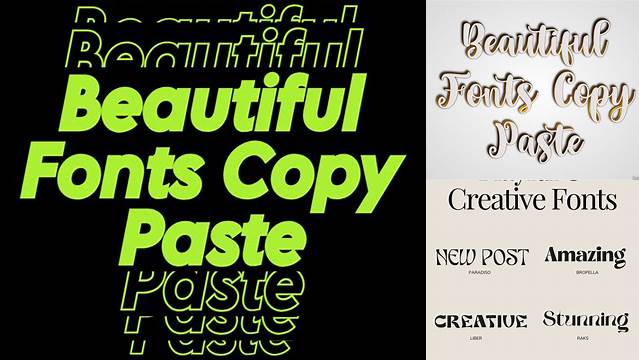
Most Beautiful Fonts: Copy and Paste Your Way to Stunning Typography
Hey guys! Ever wished you could sprinkle a little extra pizzazz on your social media posts, documents, or even just your everyday notes? Well, you're in luck! Today, we're diving headfirst into the wonderful world of most beautiful fonts copy paste. Forget those boring, standard fonts – we're talking about the cool, unique, and eye-catching ones that'll make your text pop! This guide is your one-stop shop for discovering, using, and mastering the art of font copy and paste. So, buckle up, because we're about to transform your text game!
1. Unveiling the Charm: Understanding Copy and Paste Fonts
So, what exactly are we talking about when we say most beautiful fonts copy paste? It's all about using special characters and Unicode symbols to create text that looks like a fancy font but is actually...well, a clever illusion! These aren't your typical fonts you select from a dropdown menu. Instead, they're crafted using a combination of characters that, when put together, mimic the appearance of various font styles. This allows you to use these eye-catching styles in places where you can't normally change the font, like social media bios, instant messages, or even certain websites. The beauty of this technique lies in its simplicity. You find a font style you like, copy the text, and paste it wherever you want. Boom! Instant typography upgrade. These fonts are built using Unicode characters, which are standard across most devices and platforms. This means that, unlike regular font installations, these special character fonts will generally display correctly regardless of the device or operating system your reader is using. Pretty neat, right?
Now, you might be wondering, "Is this even allowed?" and the answer is generally yes! Because you're not actually installing any fonts, you're simply using characters that are universally supported. There are no copyright issues or technical hurdles to worry about. However, keep in mind that the way these fonts appear can sometimes vary slightly depending on the device or platform. But don't worry, the core visual effect will remain. The whole goal of utilizing these types of fonts is to stand out. Think of it as a way to personalize your online presence and make your text visually appealing. So, whether you're a social media guru, a content creator, or just someone who likes to have fun with their text, this is your playground! Let’s get into the nitty-gritty of how to find and use these awesome fonts.
2. Exploring Font Styles: A Diverse Range for Every Taste
Alright, let's talk about options. The world of most beautiful fonts copy paste is vast and diverse, offering a style for every occasion and personality. From the elegant and sophisticated to the quirky and playful, there's a font out there for you. Here's a glimpse into some of the most popular font categories you'll encounter:
- Serif Fonts: Classic and timeless, serif fonts have small decorative strokes at the end of each letter. Think of fonts like "Times New Roman," but with a unique twist. Copy and paste versions of serif fonts can add a touch of professionalism and elegance to your text. They are great for formal invitations, announcements, or anything that requires a touch of grace.
- Sans-Serif Fonts: Clean and modern, sans-serif fonts lack the decorative strokes, making them appear streamlined and easy to read. These are perfect for a contemporary look and are excellent for headings, social media posts, and any situation where clarity is key. Imagine fonts like "Arial" or "Helvetica" but crafted with special characters.
- Script Fonts: These fonts mimic handwriting, adding a personal and artistic touch to your text. They can range from delicate and flowing to bold and dramatic. They're perfect for adding a touch of personality to your social media profiles, creating artistic signatures, or spicing up your captions.
- Cursive Fonts: Similar to script fonts, cursive fonts emulate cursive handwriting. They add a touch of sophistication and are often used for invitations, quotes, and other creative projects. Using cursive font is great for adding a personal touch that feels both fancy and unique.
- Monospace Fonts: In monospace fonts, each character occupies the same horizontal space. This is useful for code snippets or when you need a consistent appearance, and it can also create a retro aesthetic. These fonts can give you a techy or vintage look.
- Bubble Fonts: Playful and fun, bubble fonts have a rounded, bubbly appearance. They're perfect for casual settings, and for adding a touch of cheerfulness to your text.
- Specialty Fonts: This category encompasses a wide variety of unique and creative fonts, including those with symbols, patterns, and artistic designs. This is where you'll find fonts that truly stand out and make your text unforgettable. This is great for logos and adding extra spice.
Remember, the best font is the one that fits your message and your personality. Don't be afraid to experiment and find the styles that resonate with you! You can mix and match these font styles to achieve the exact look you want.
3. Font Generators: Your Gateway to Stylish Text
Now, where do you find these magical most beautiful fonts copy paste options? Enter the world of font generators! These handy online tools are your portal to stylish text. They're incredibly easy to use. You simply type your text into the generator, and it instantly transforms it into various font styles. You then copy the text you like and paste it where you want. Simple, right? Let's explore some of the top font generator categories:
- Unicode Font Generators: These are the most common and versatile type. They use Unicode characters to create a wide range of font styles, from classic serifs and sans-serifs to fancy scripts and cool symbols. Unicode font generators are generally compatible with most platforms and devices, making them a safe bet.